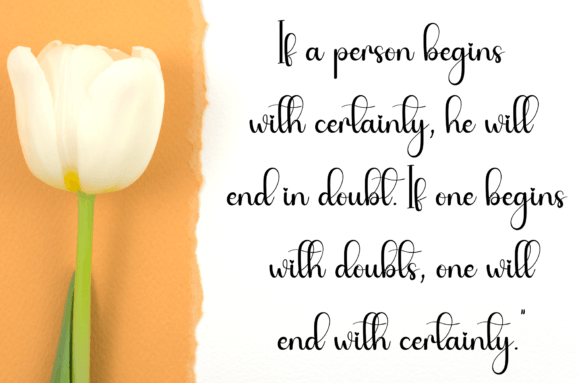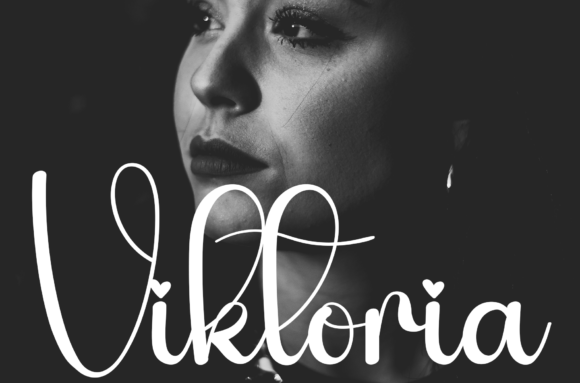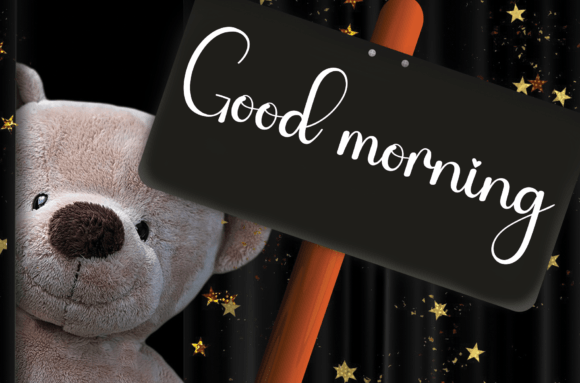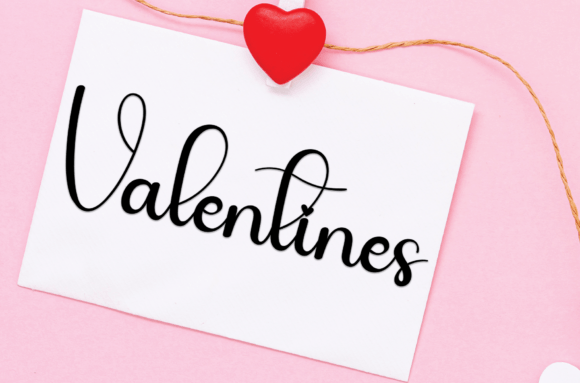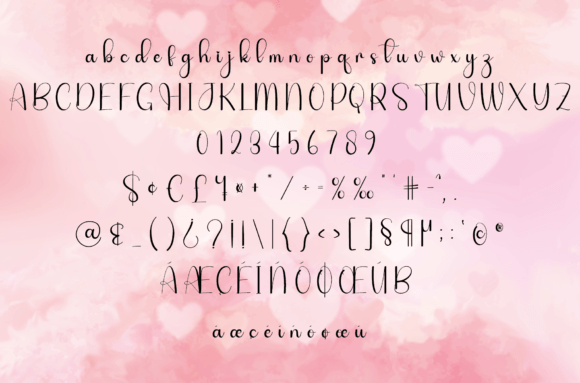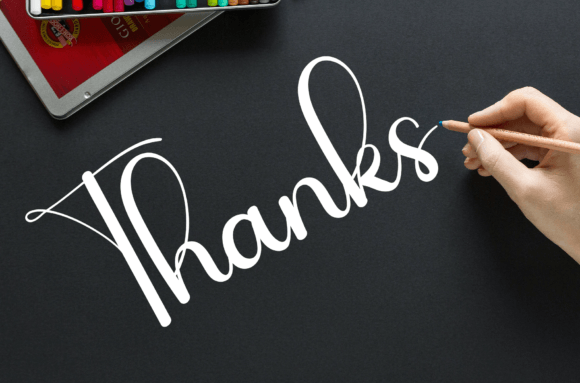
Yellow Font
About Yellow Font
Yellow Font is a sweet and friendly handwritten font that brings a relaxed, joyful feeling to your designs. With its smooth strokes and natural flow, this font feels like a handwritten note from a friend. Whether you’re designing wedding invitations, greeting cards, or social media graphics, Yellow Font adds a touch of warmth and charm.
A Handwritten Style That Feels Personal
Yellow Font was carefully crafted to look authentic and approachable. Each letter has gentle curves and a slight bounce, creating a lively rhythm that draws attention. This natural style makes it perfect for projects where you want to connect emotionally with your audience.
Use Yellow Font to give your designs a personal, handmade feel. Its cheerful look helps your message feel heartfelt and genuine.
This font is ideal for a wide variety of applications, such as:
• Wedding Invitations: Add a lovely, romantic touch to your wedding stationery.
• Greeting Cards: Make birthday, thank-you, or holiday cards feel extra special.
• Quotes and Wall Art: Create inspiring prints to decorate homes or offices.
• Social Media Posts: Catch attention with engaging Instagram stories and pins.
• Branding: Use it in logos and packaging to make your brand feel friendly and authentic.
Whatever you’re designing, Yellow Font can help you create something memorable.
Complete Character Set
Yellow Font includes everything you need to bring your ideas to life. You’ll get:
• Uppercase and lowercase letters
• Numbers
• Punctuation and symbols
Easy to Pair with Other Fonts
Yellow Font pairs beautifully with many other typefaces. Try using it with a clean sans-serif for a modern contrast or with a delicate serif font for an elegant style. Because of its balanced shapes and friendly vibe, it works equally well for headlines, subheadings, and short paragraphs.
This versatility means you can keep your branding consistent across all channels, from print to digital.
A Font That Makes Your Message Shine
Yellow Font isn’t just pretty—it also helps you communicate. The clear, legible letters ensure your message is easy to read, while the sweet personality adds extra impact.
When you use Yellow Font, you’re giving your project a little boost of positivity and charm. It’s perfect for designers who want their work to feel warm, inviting, and fun.
Add Yellow Font to your font library and watch how it transforms your ideas into bright, beautiful designs that make people smile.